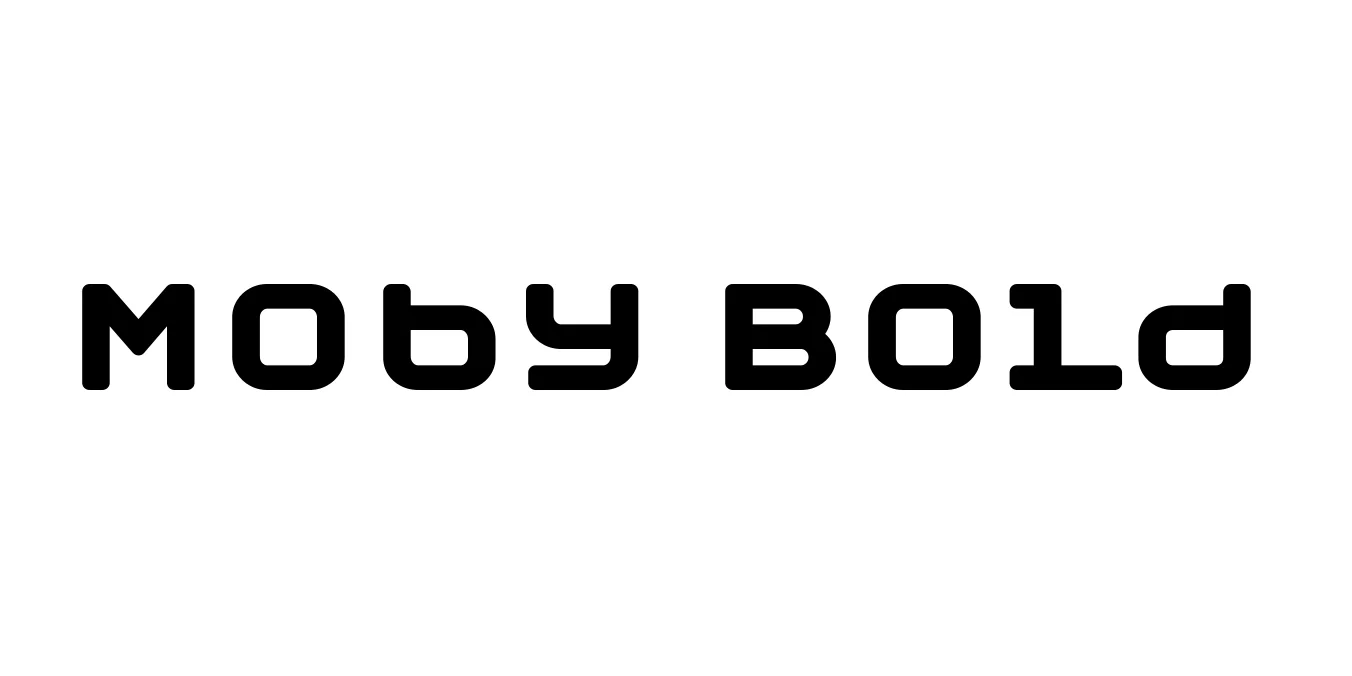
Moby Bold
Designed by Udo Reuss
| Category | Display / Sans Serif |
Moby Bold is a high-impact display typeface characterized by its chunky, geometric structure and softened rounded terminals. Created during the peak of the techno-aesthetic movement in the late 1990s, it embodies a sense of digital optimism and structural strength. Its ultra-heavy weight ensures that it remains legible even in busy visual environments, making it a favorite for designers seeking a bold, friendly, and futuristic appearance.
The typeface is particularly effective in settings that require a balance between industrial rigidity and playful design. Moby Bold has found a lasting legacy in the music industry, specifically within electronic and pop genres, as well as in the gaming world where its bold presence complements high-energy user interfaces. Its thick strokes and consistent width make it an excellent choice for modern branding that demands immediate attention.
Moby Bold Best Uses
Excellent for creating chunky, memorable logos and brand marks.
Perfect for large-scale headlines that need to stand out from a distance.
Ideal for arcade-style or sci-fi user interface elements and title screens.
Works well for graphic t-shirts and bold merchandise prints.